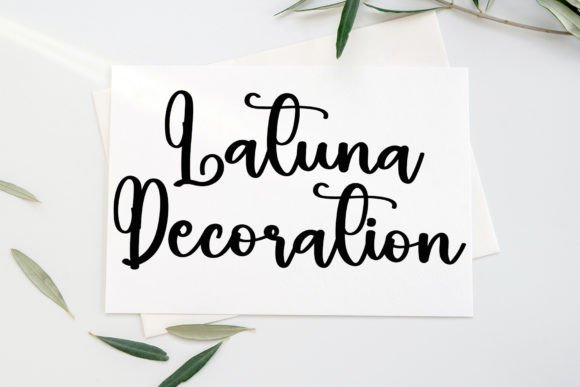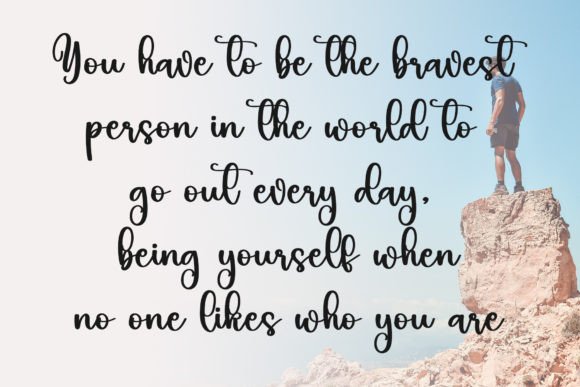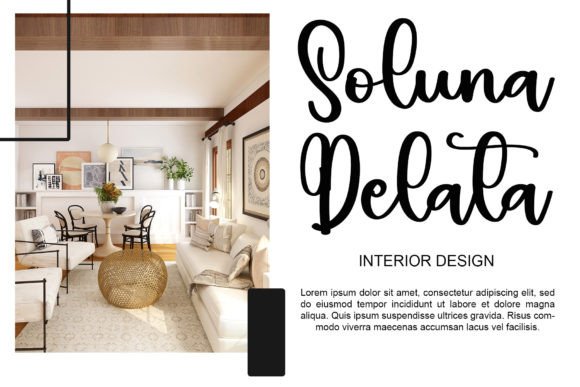
Introduction to Sitting Font
Have you ever been working on a creative project, pouring your heart and soul into it, only to feel like something is missing? A dash of personality, perhaps, or a unique touch that sets it apart from the rest? For designers, finding that perfect design resource can be the difference between a good project and a great one. That’s where Sitting Font comes in – a stylish handwritten font that’s sure to elevate your next creative endeavor.
With its contemporary atmosphere and impeccable form, Sitting Font is the perfect blend of classic calligraphy and modern flair. Its balanced and varied design makes it an excellent choice for a wide range of projects, from branding and marketing materials to editorial and digital content. Whether you’re working on a high-quality brochure or a simple social media graphic, Sitting Font is a versatile design tool that’s sure to deliver.
Sitting Font
Honest Review: Sitting Font
I recently had the chance to dive into the world of Sitting Font, and I must say, it’s an interesting addition to my design library. As a designer, I appreciate high-quality resources that can elevate my creative projects.
- Transparency: Sitting Font offers transparent backgrounds, which makes it a great choice for designers who need to work with complex backgrounds.
- Design versatility: Sitting Font can be used in a variety of design contexts, from digital to print projects.
- Limited character set: Sitting Font’s character set is relatively limited, which may not be ideal for designers who need to work with a wide range of characters.
- No customization options: While Sitting Font looks great out of the box, I would have liked to see some customization options to help designers tailor the font to their specific needs.
Overall, Sitting Font is a solid design resource that can add some personality to your creative projects. While it may have some limitations, its high quality and free availability make it a great choice for designers who are looking for a new font to add to their library.
Sitting Font
Sitting Font is a high-quality design resource perfect for creative projects. With its transparent background, it’s easy to integrate into your designs. You can download Sitting Font for free, giving you the flexibility to use it in a variety of applications.
Tips for Getting the Most Out of Sitting Font
To get the most out of Sitting Font, use it in conjunction with other design elements to create a cohesive look. Experiment with different font sizes, colors, and styles to find the perfect combination for your design.
Sitting Font is perfect for a variety of design projects, including social media graphics, blog posts, and marketing materials. Its high-quality design and transparent background make it easy to use in a range of applications.